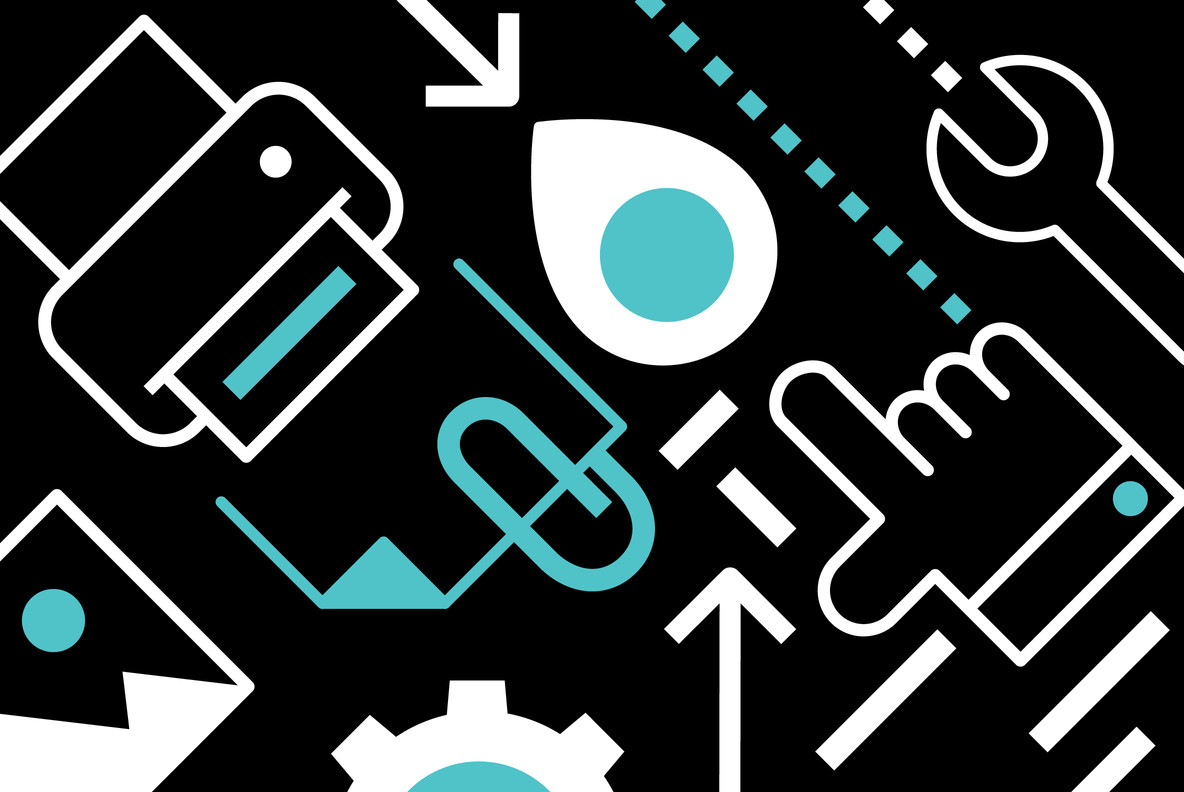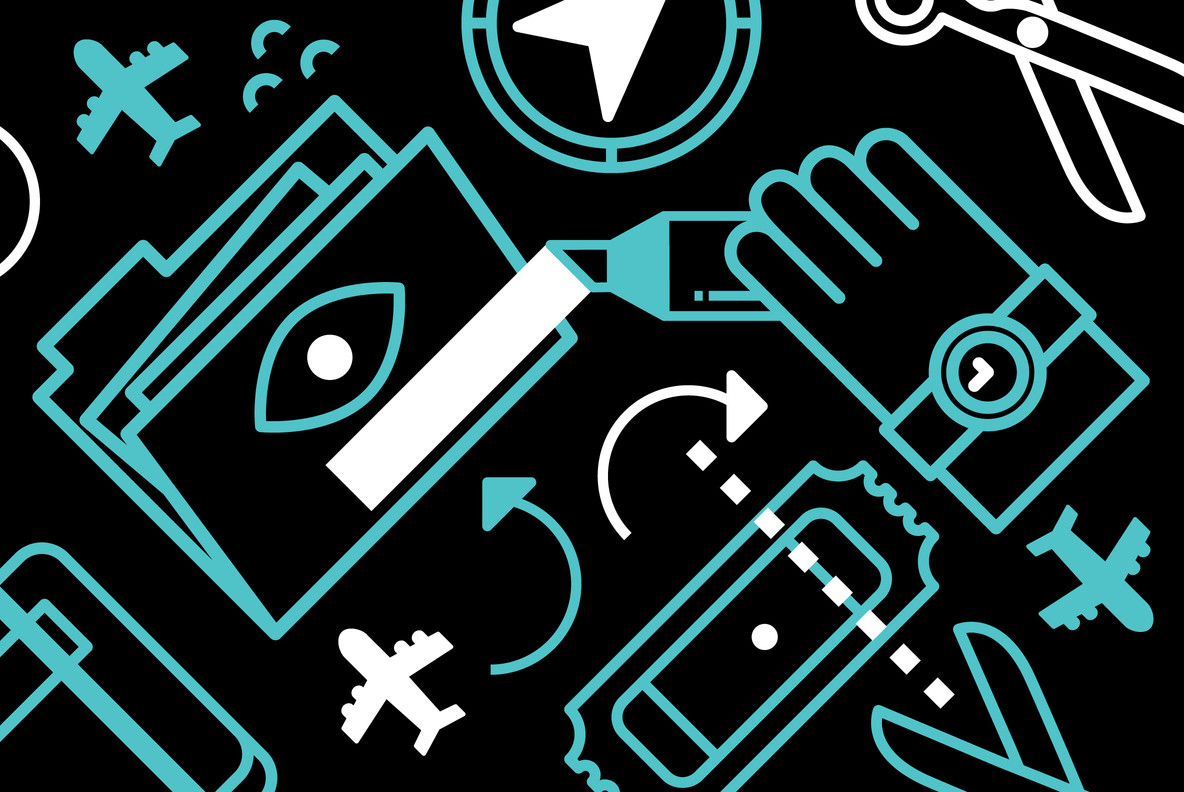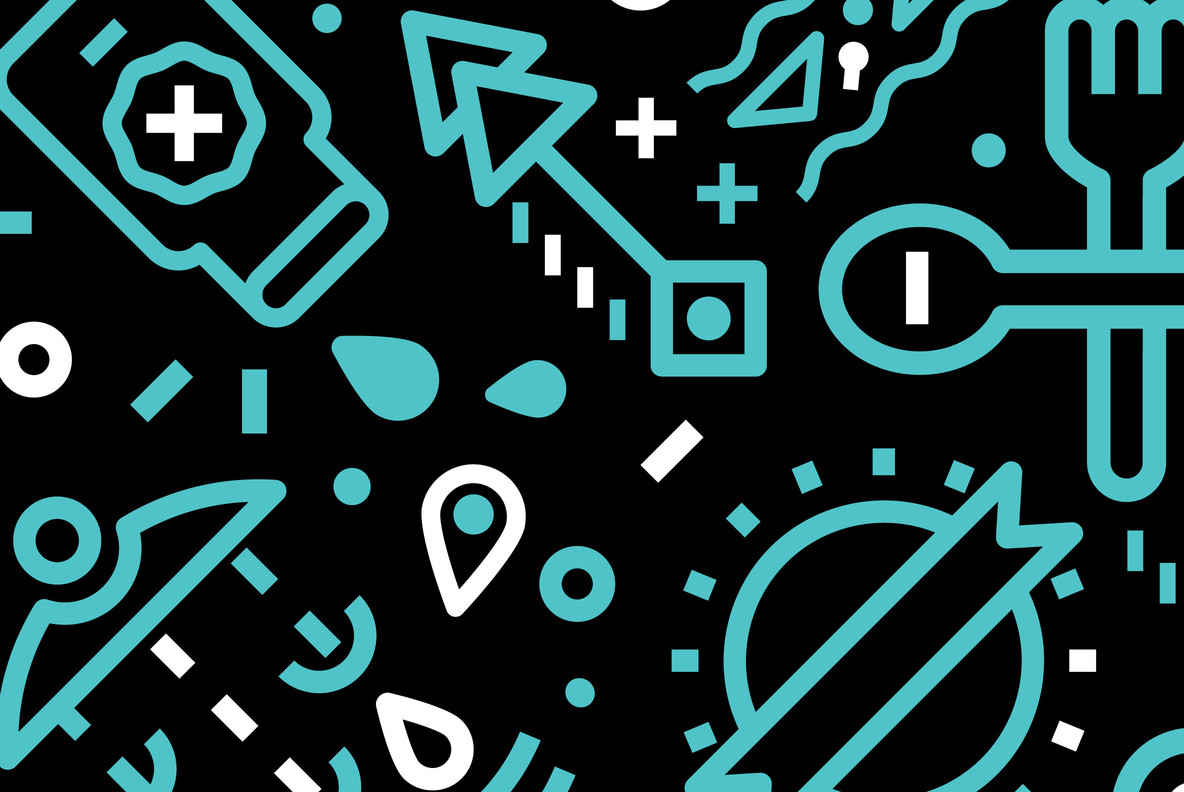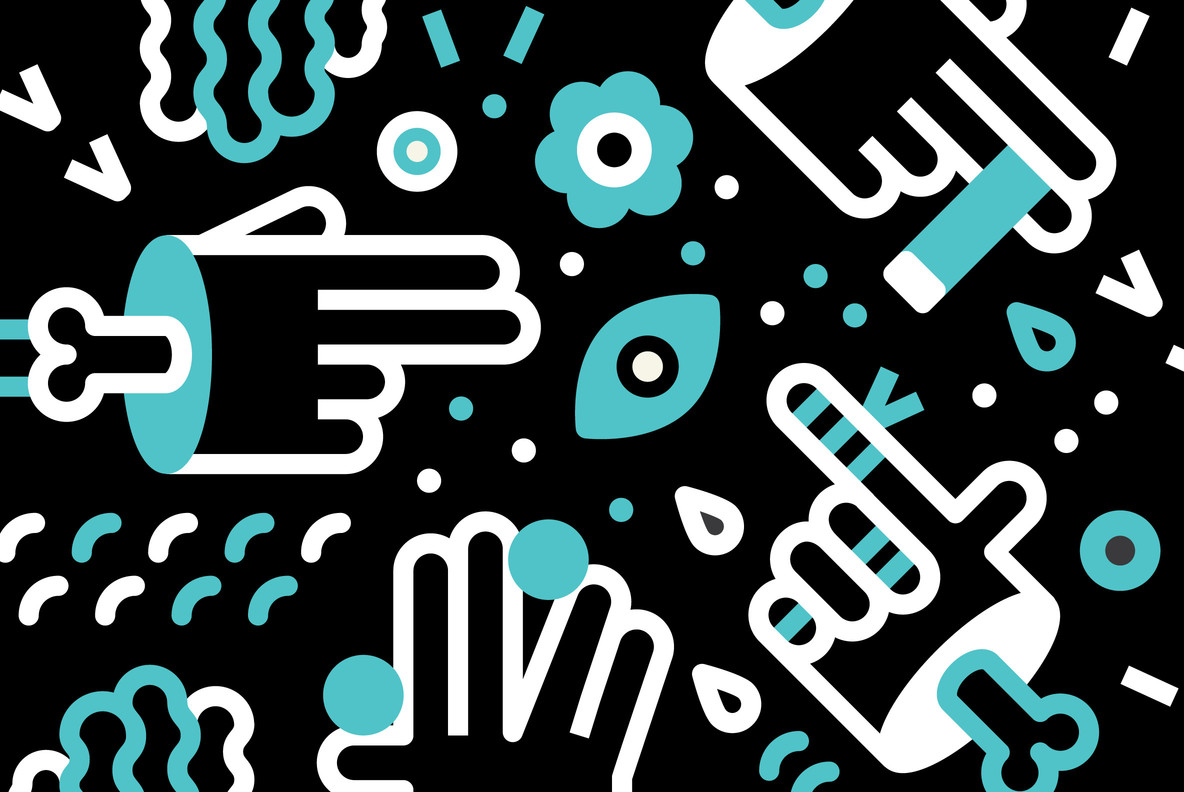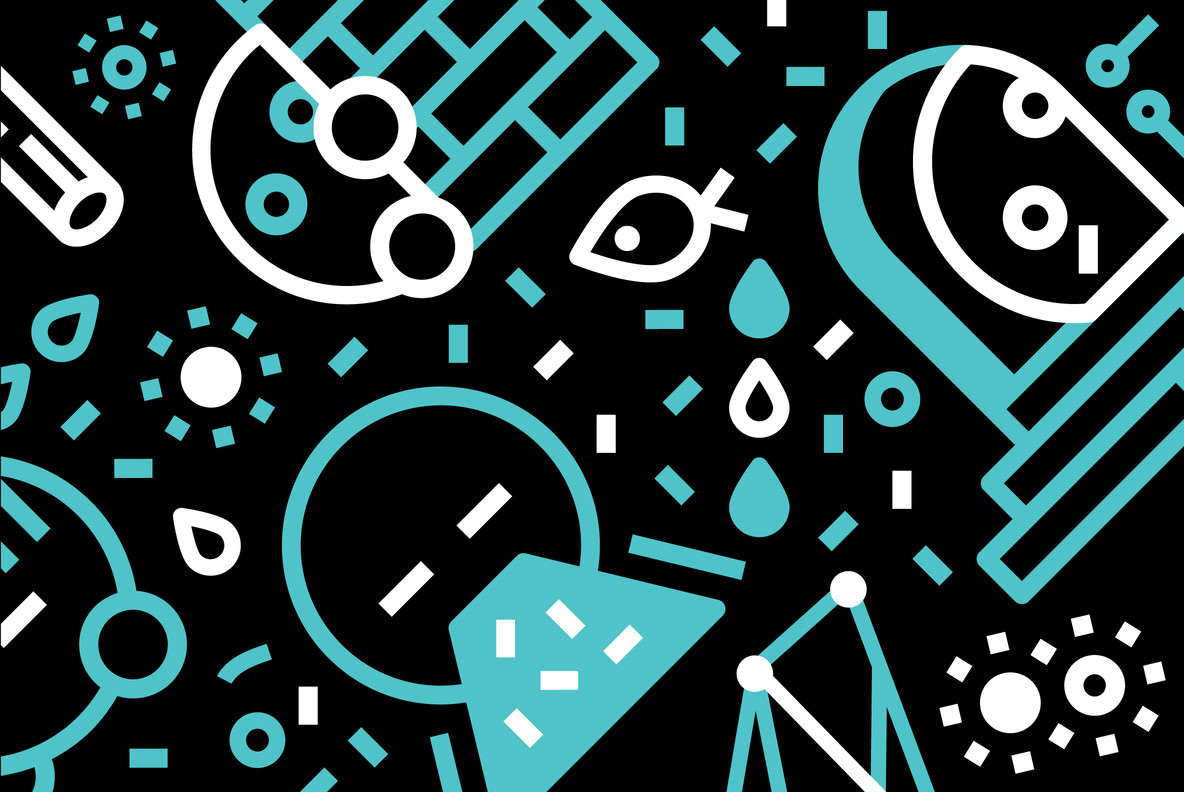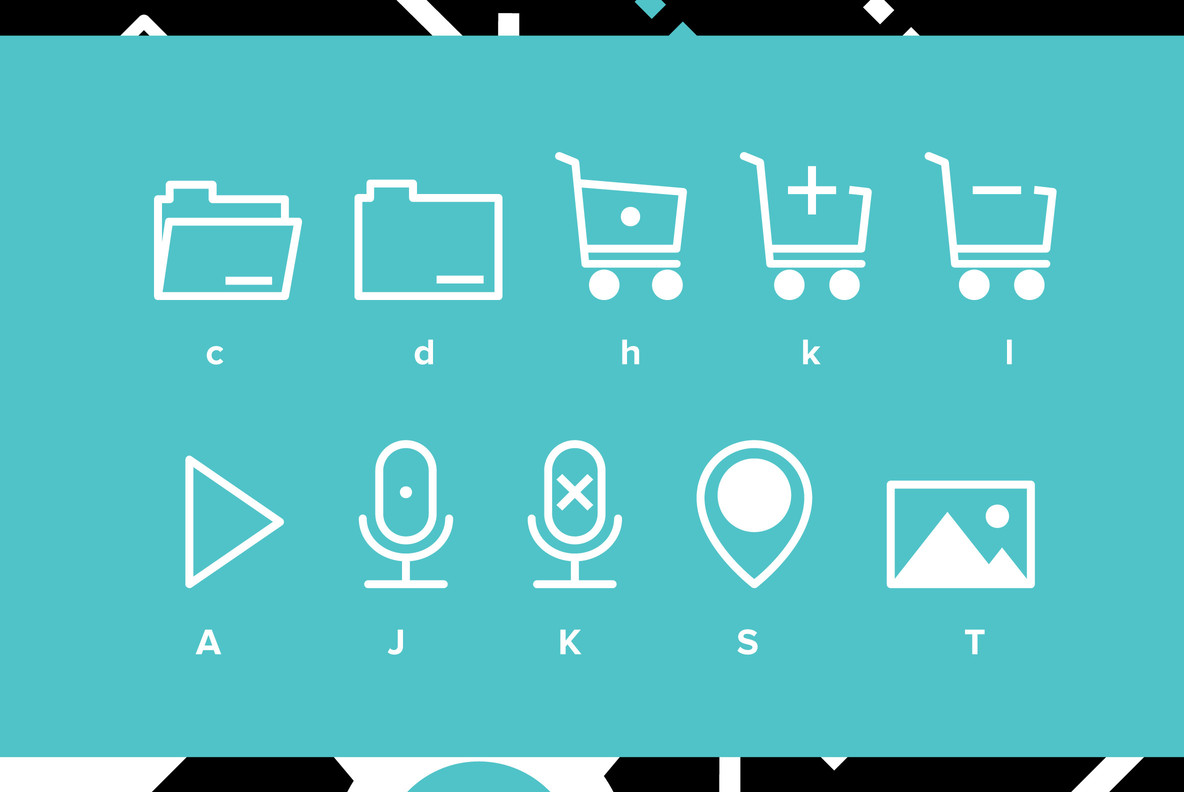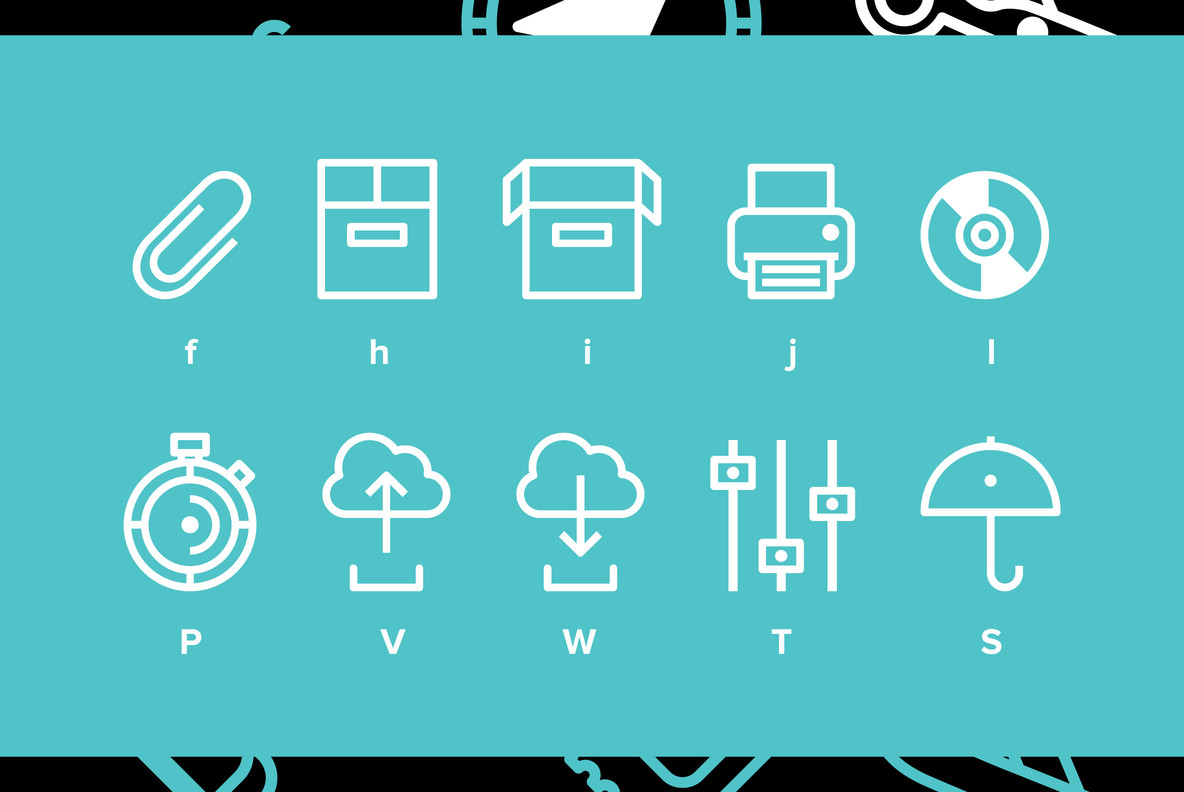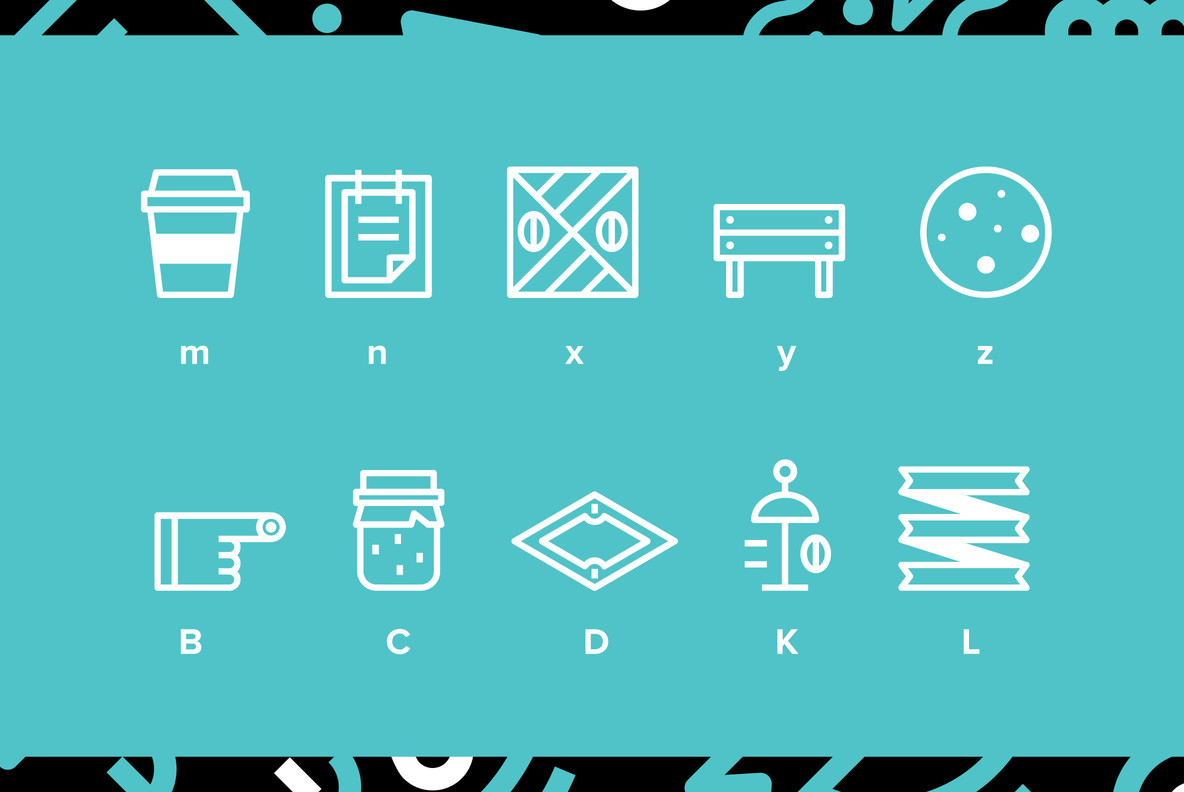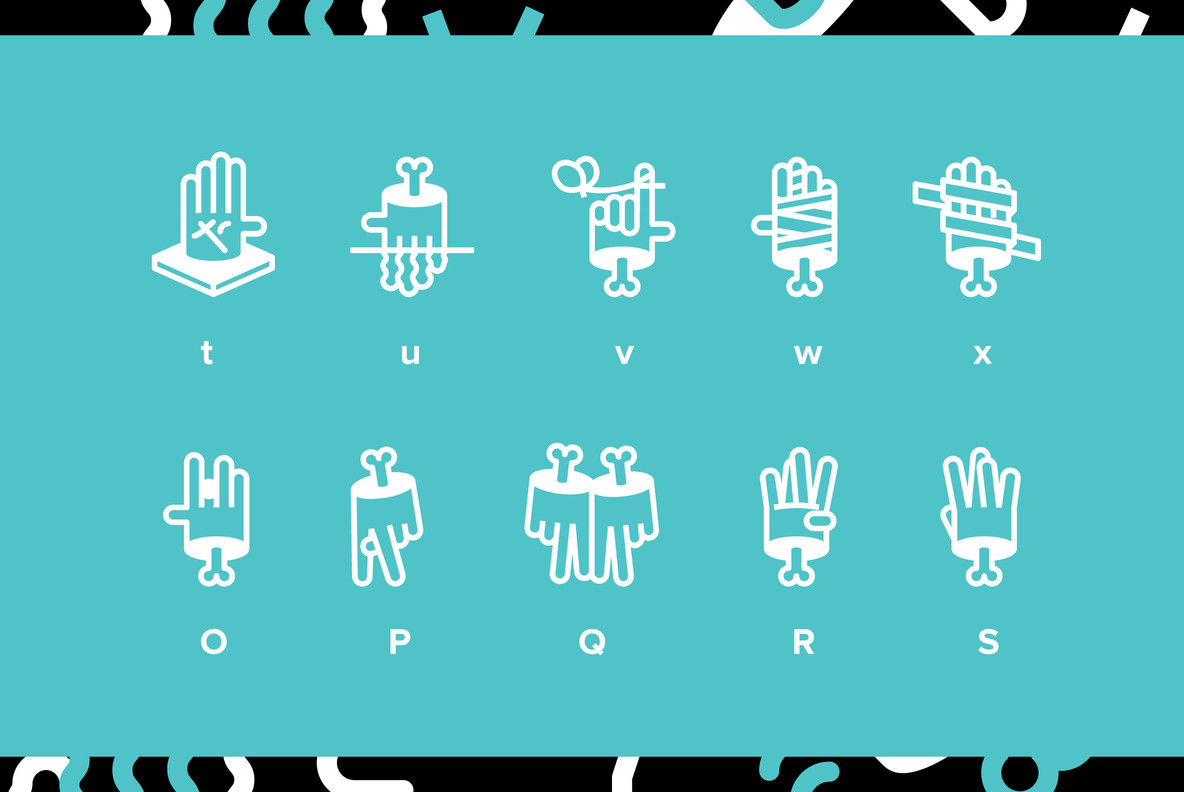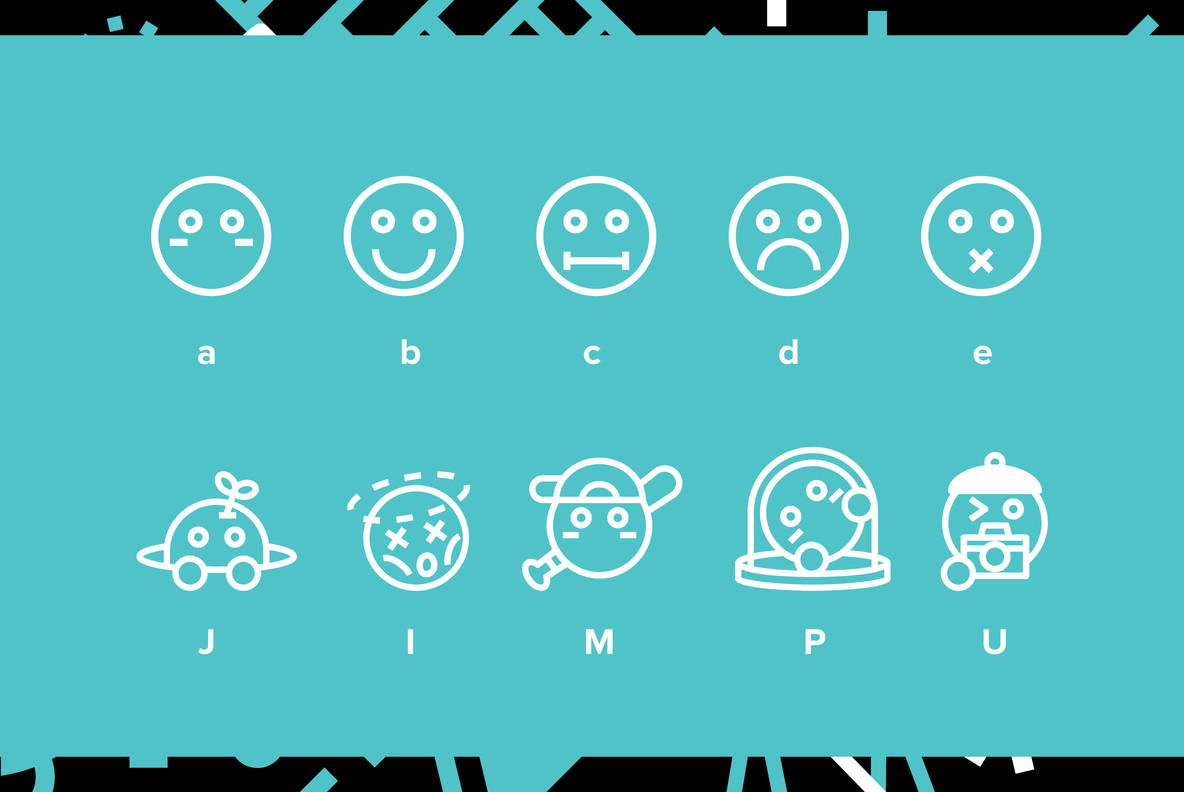
The Basicons Collection Font
A couple years ago we released five different sets of themed illustrations called "YWFT Basicons." These five sets of vector designs were entitled "Business," "Cafe," "Emoji," "Hands" and "Web Design," and they were very helpful in a variety of design situations. Well hold onto your hat emoji, because they are now available as one set, for one low price, both in font format as well as in the original vector format.
This collection contains over 500 vector icons, and 5 separate OpenType font files. Each font contains over 80 icon drawings, and the vector eps files extend to provide another 20 or so more extra drawings.